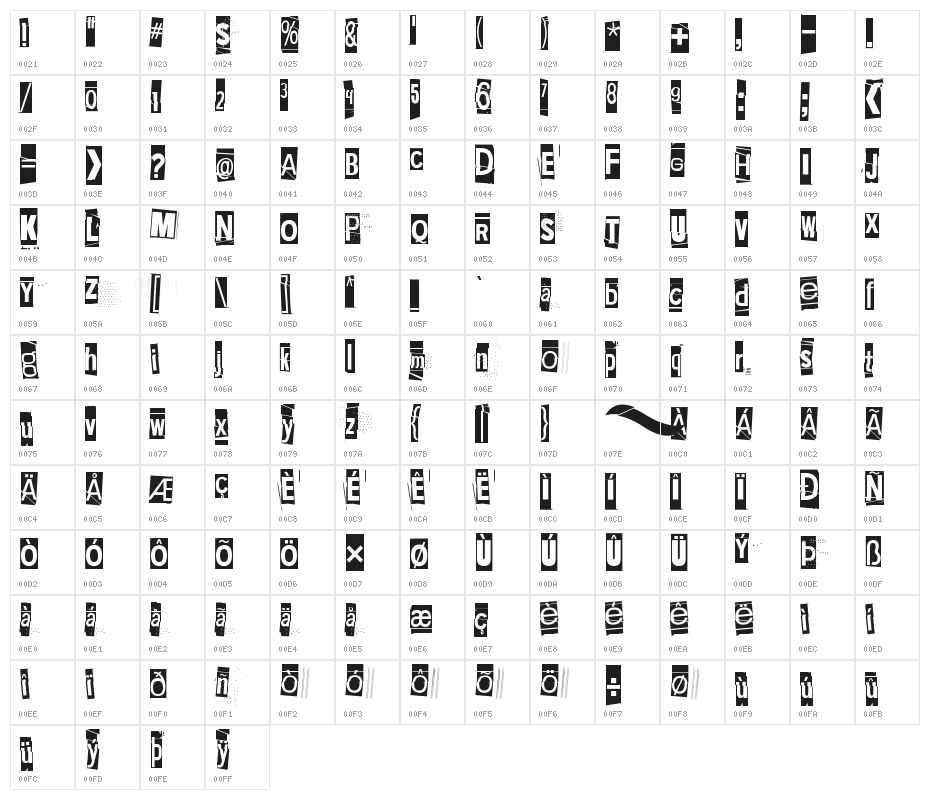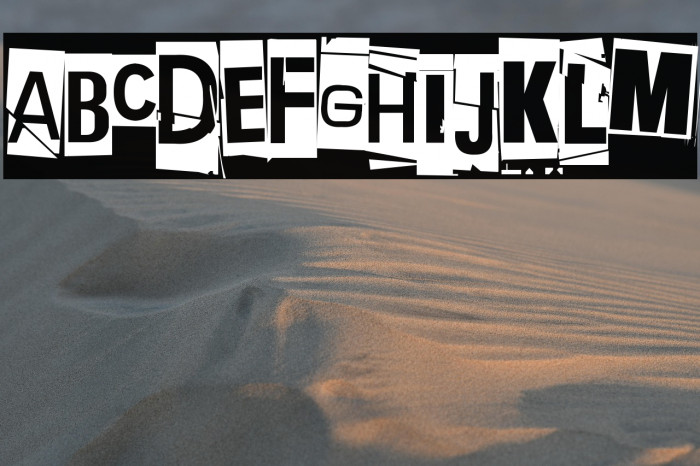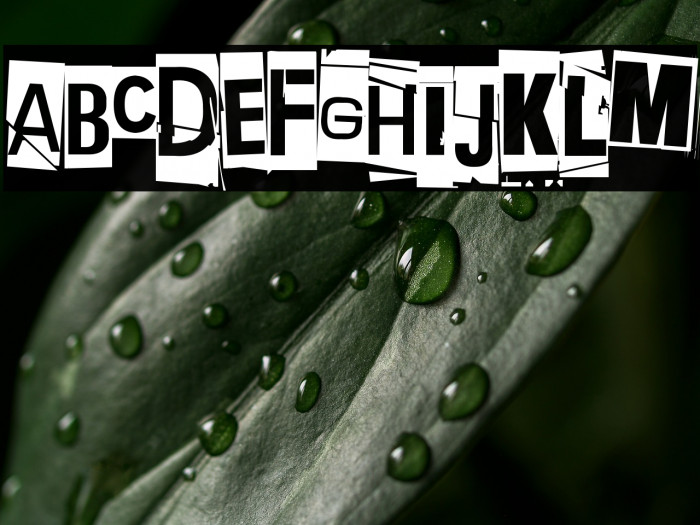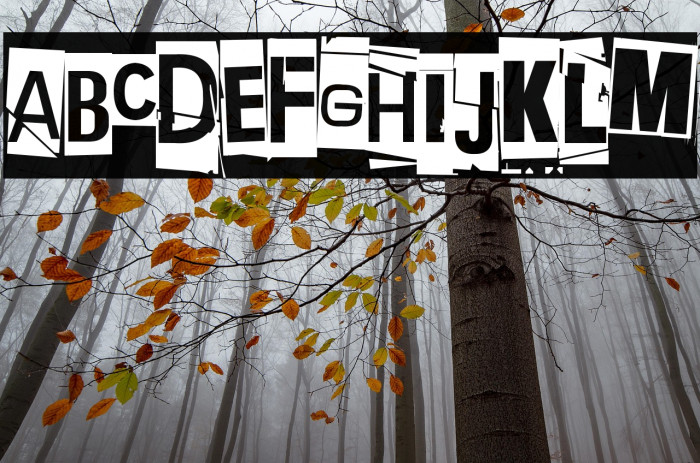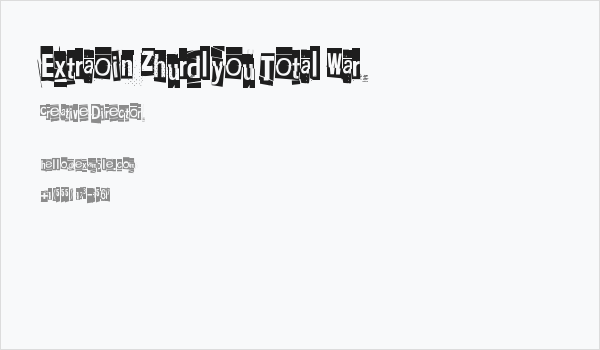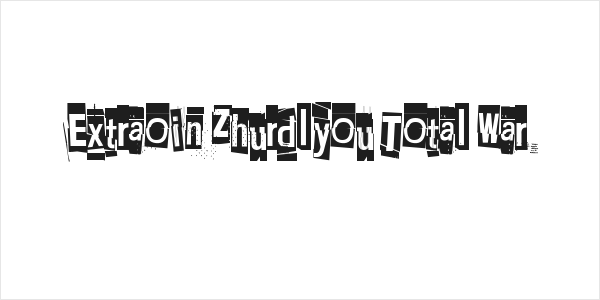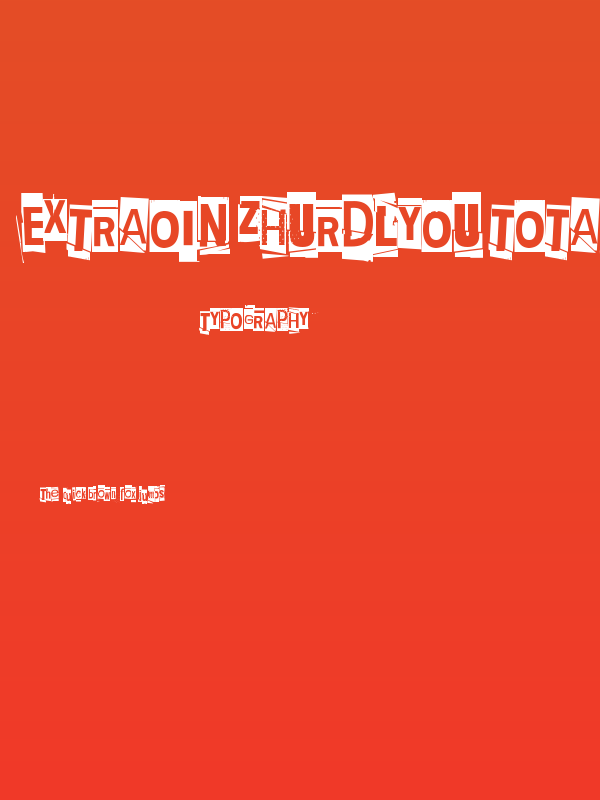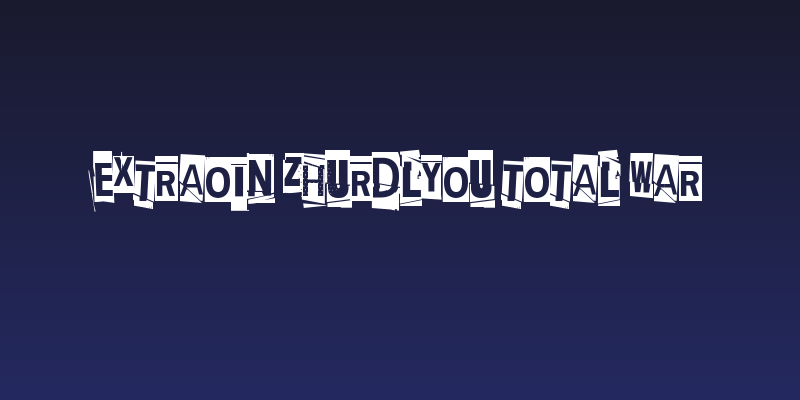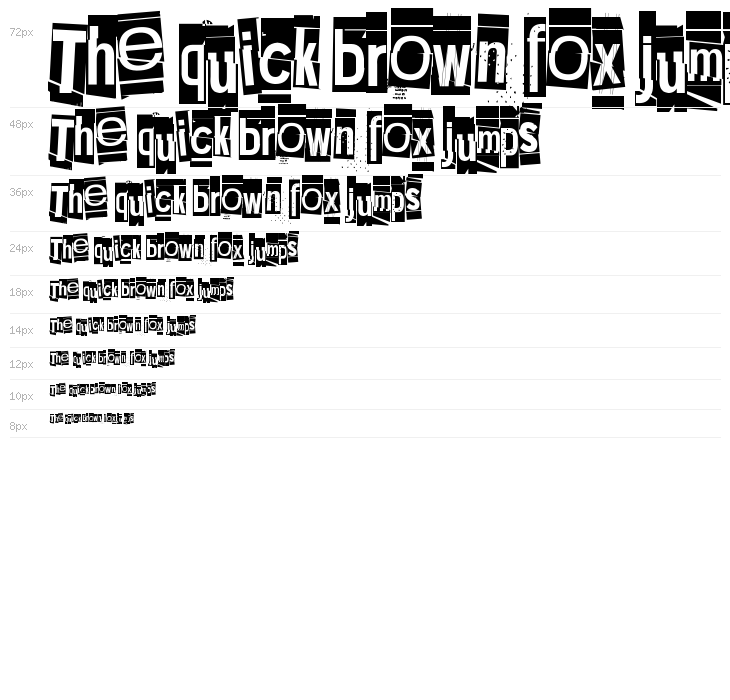
Extraoin Zhurdlyou Total War Font
Extraoin Zhurdlyou Total War Description
This font features a highly eclectic and chaotic design, reminiscent of ransom notes or cut-out letters from magazines. Each character is uniquely styled, with varying sizes, orientations, and backgrounds, creating a sense of disorder and unpredictability. The letters are bold and heavily stylized, often with distressed or grunge textures, adding to the overall edgy and rebellious aesthetic. The font's irregularity and high contrast make it stand out, ensuring that it captures attention immediately. It's perfect for projects that require a bold, unconventional look.
| Proposed Projects | Ideal for edgy posters, album covers, rebellious branding, or any project needing a standout, unconventional look. |